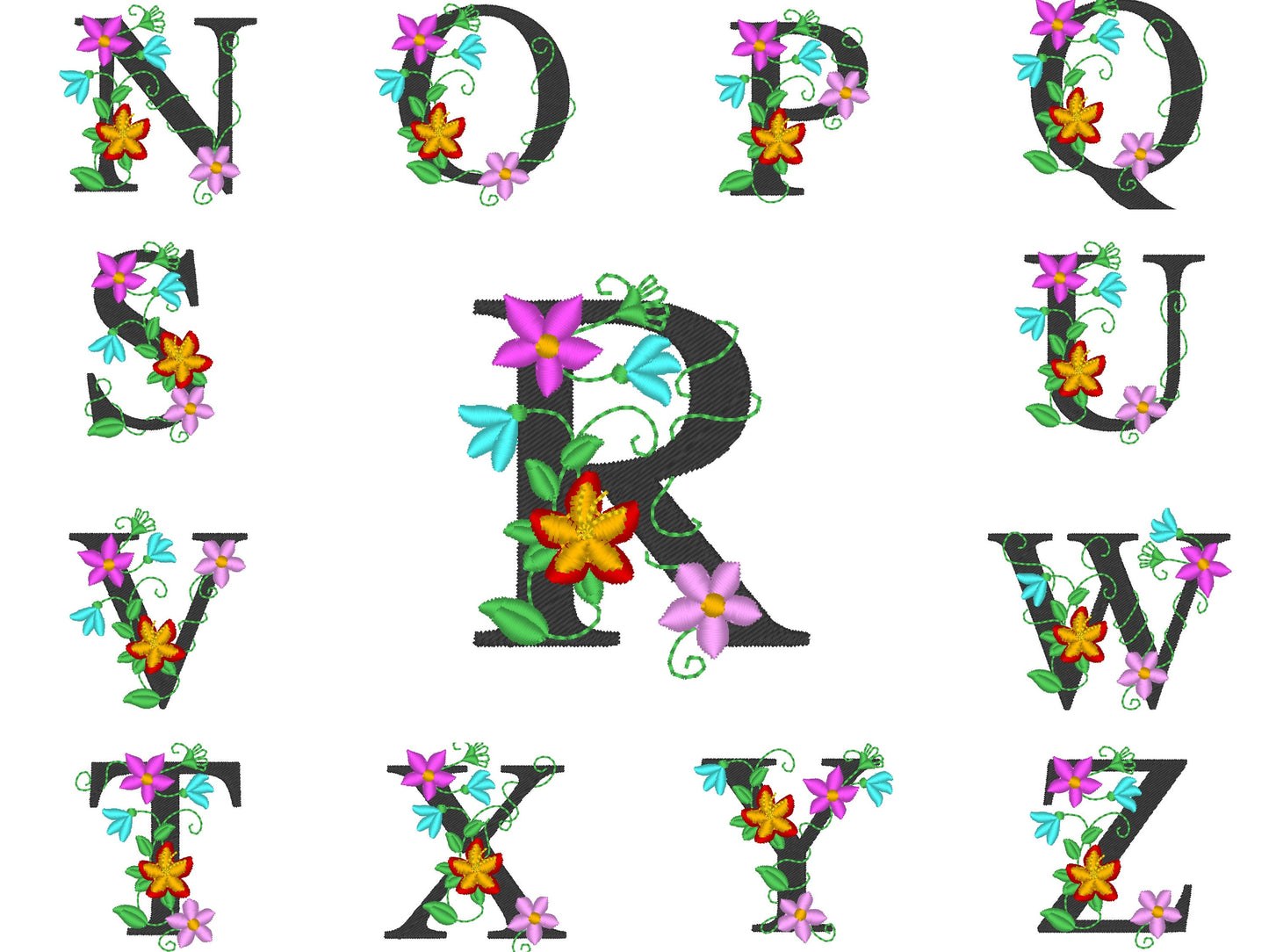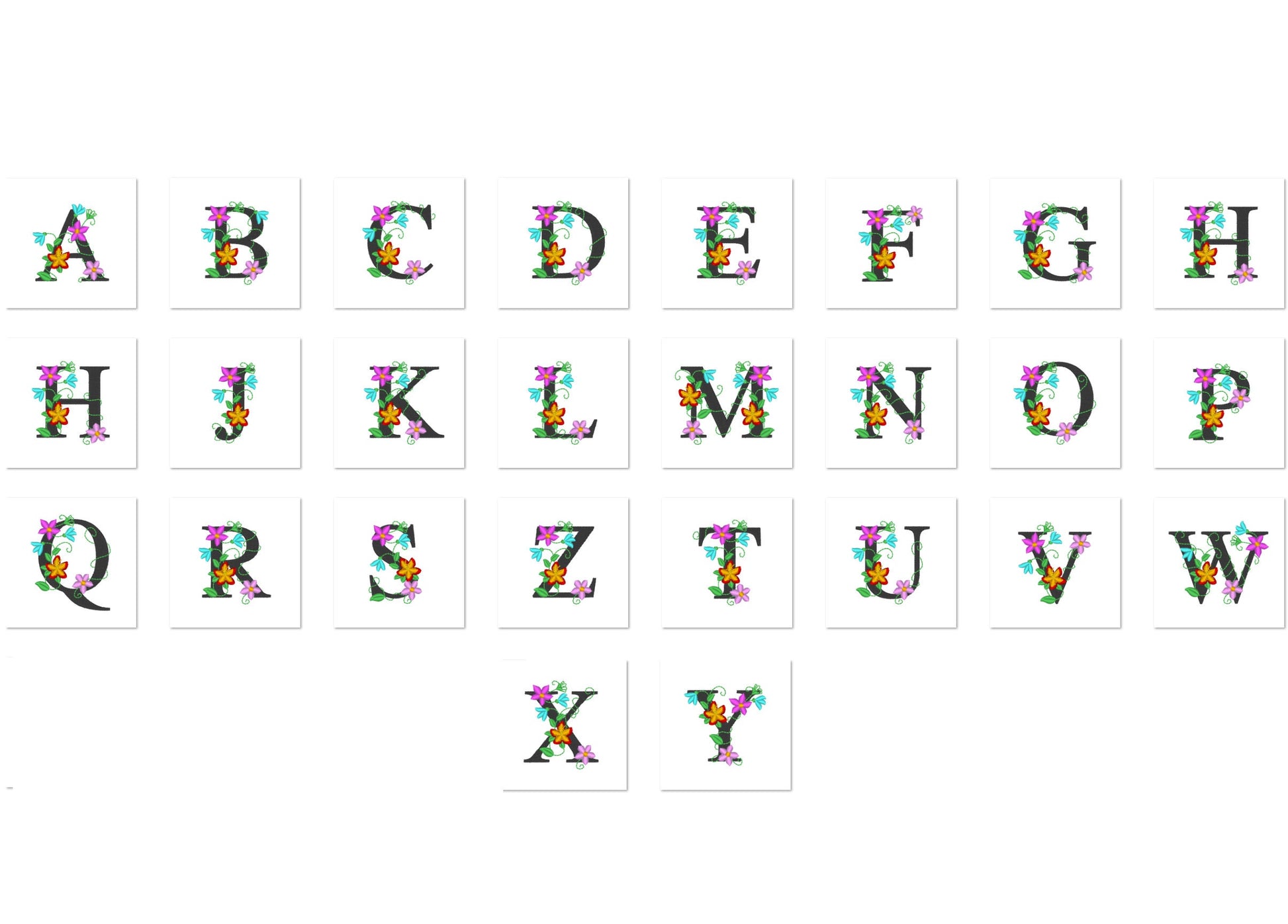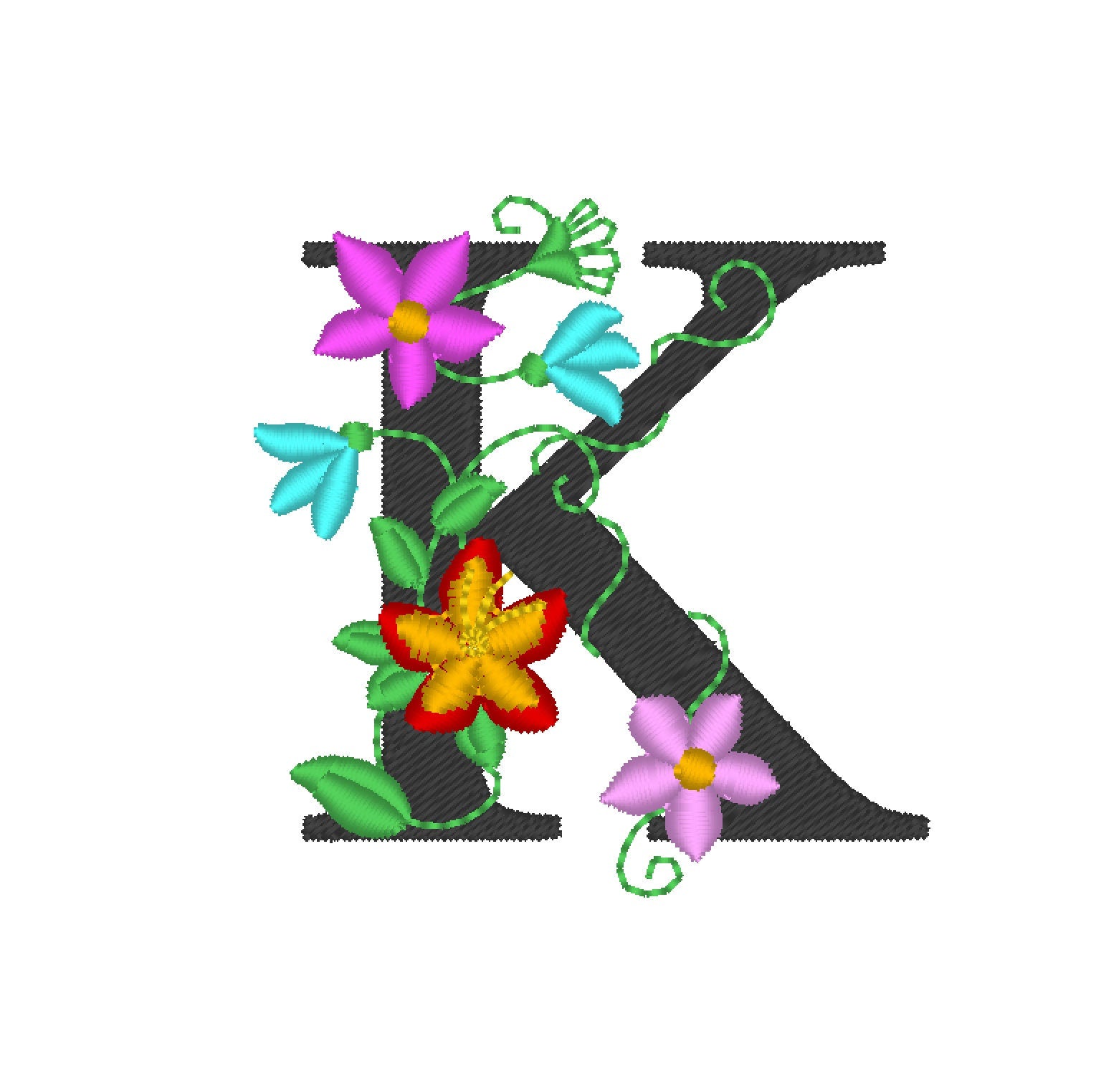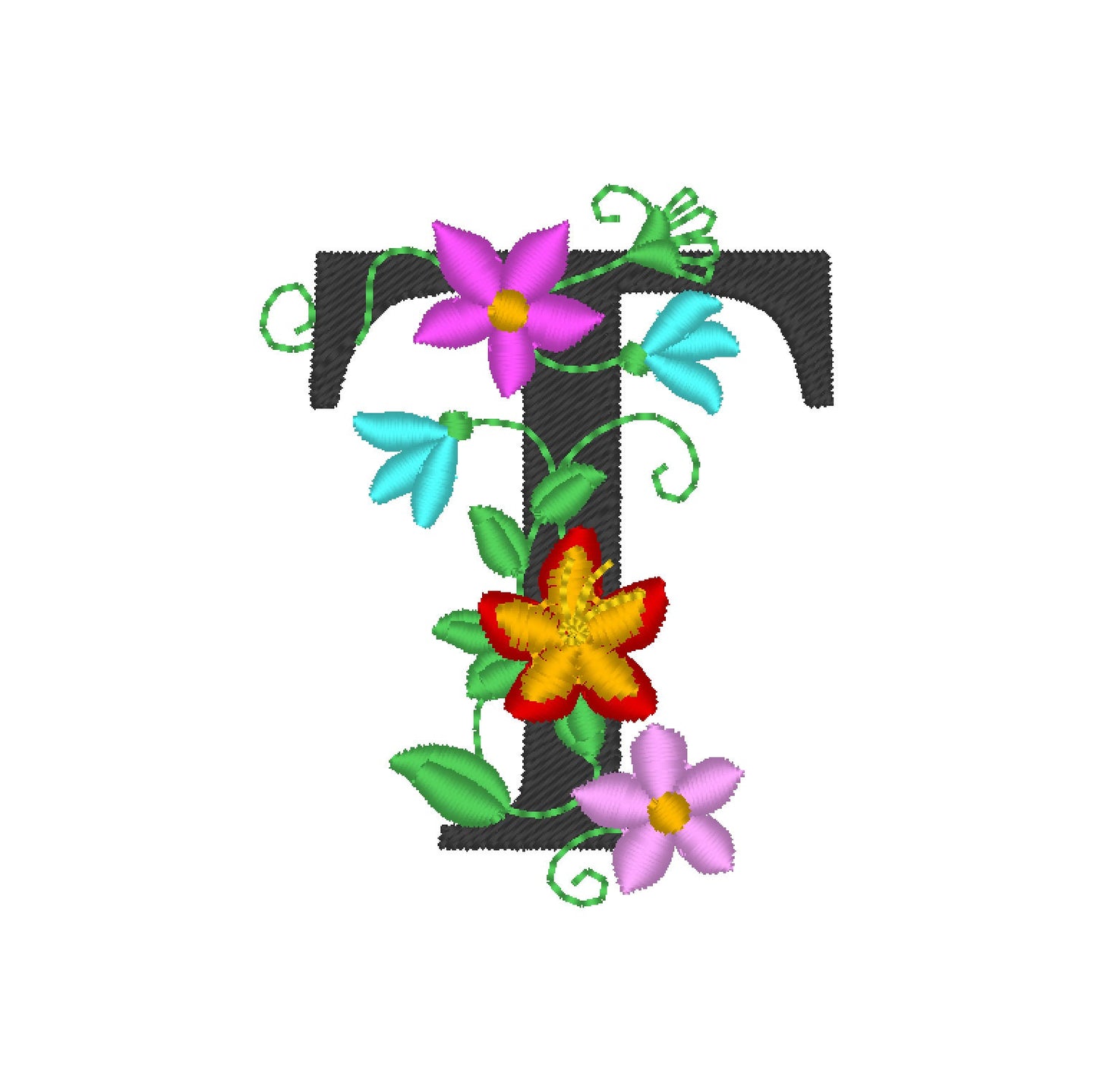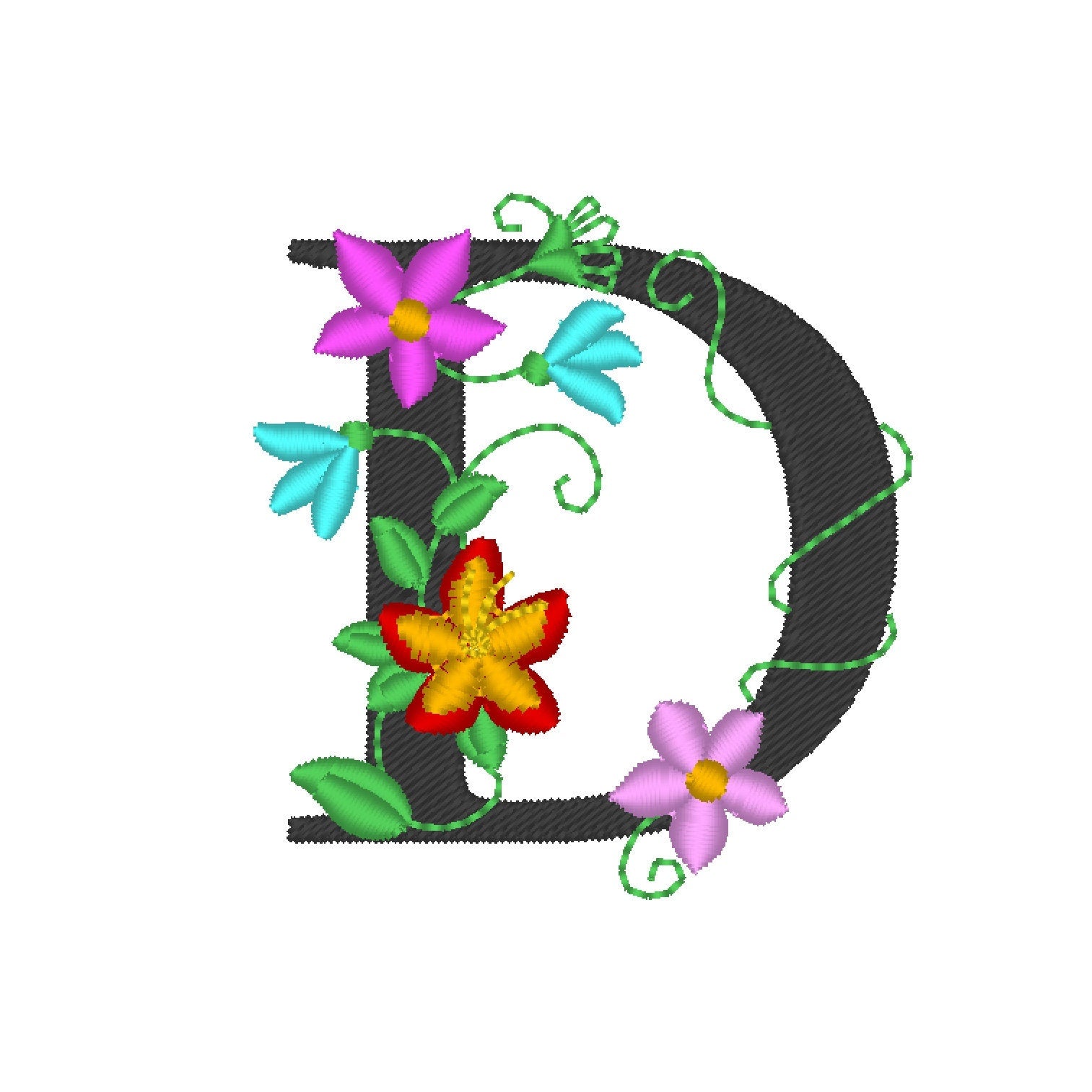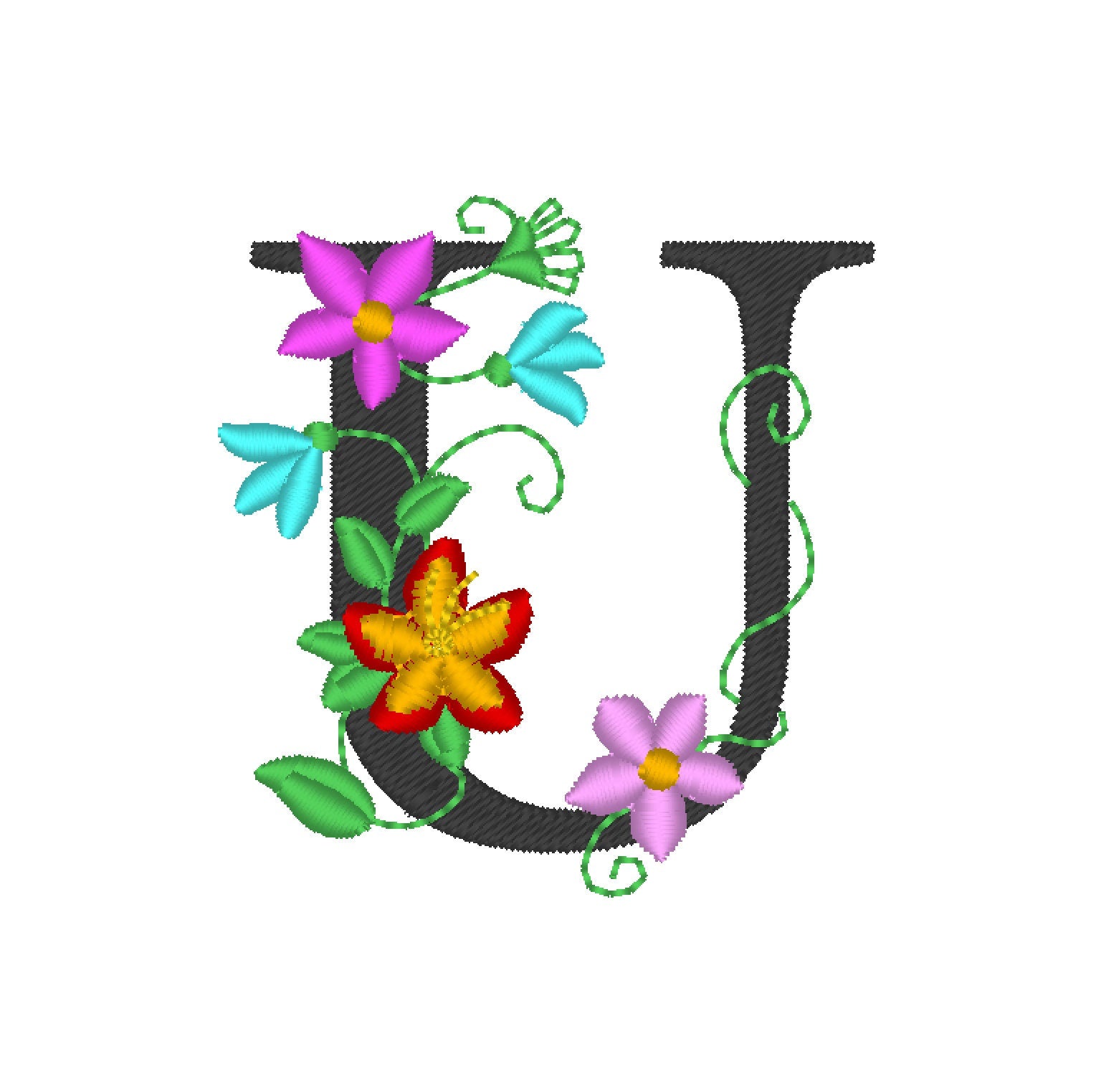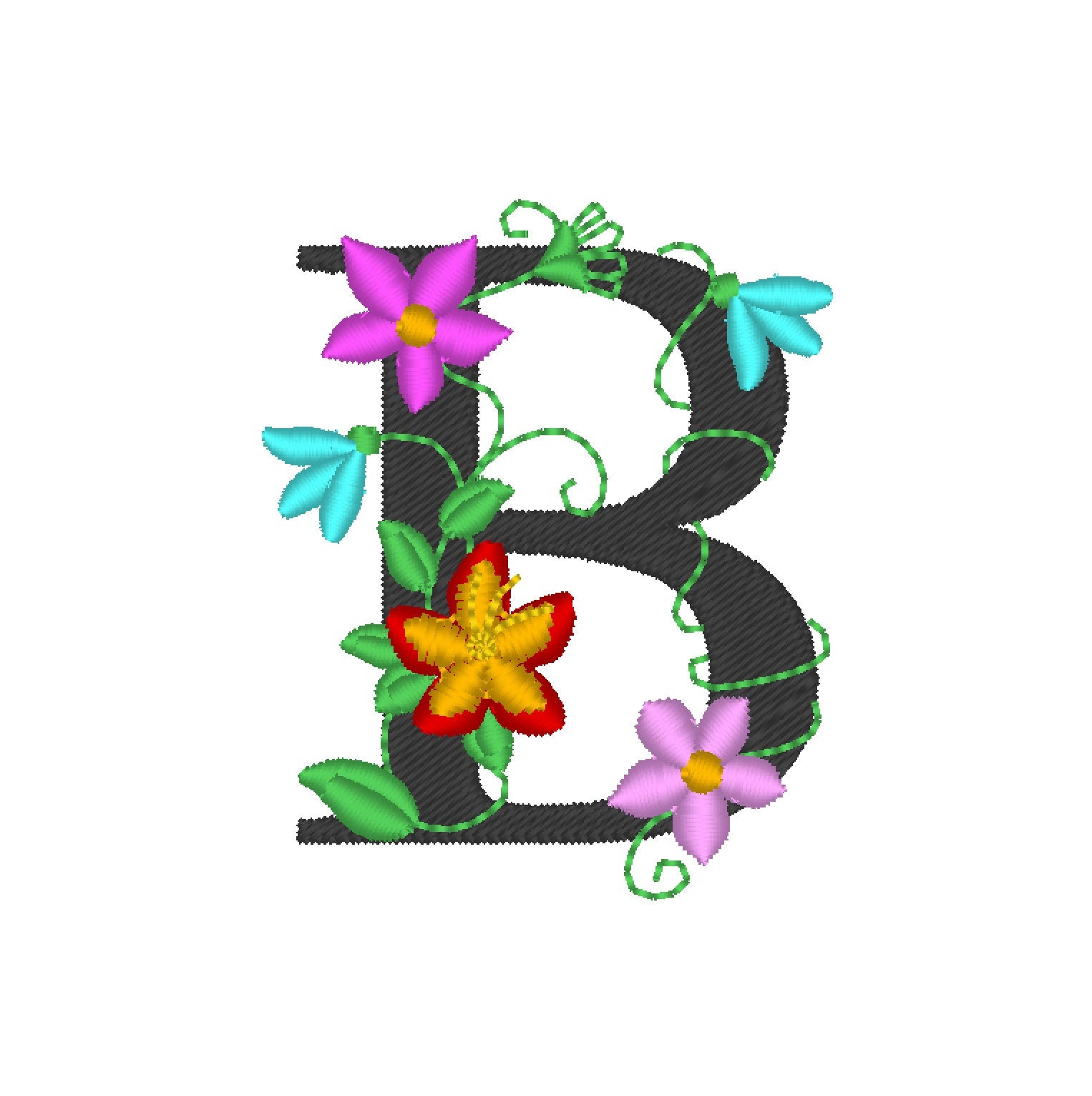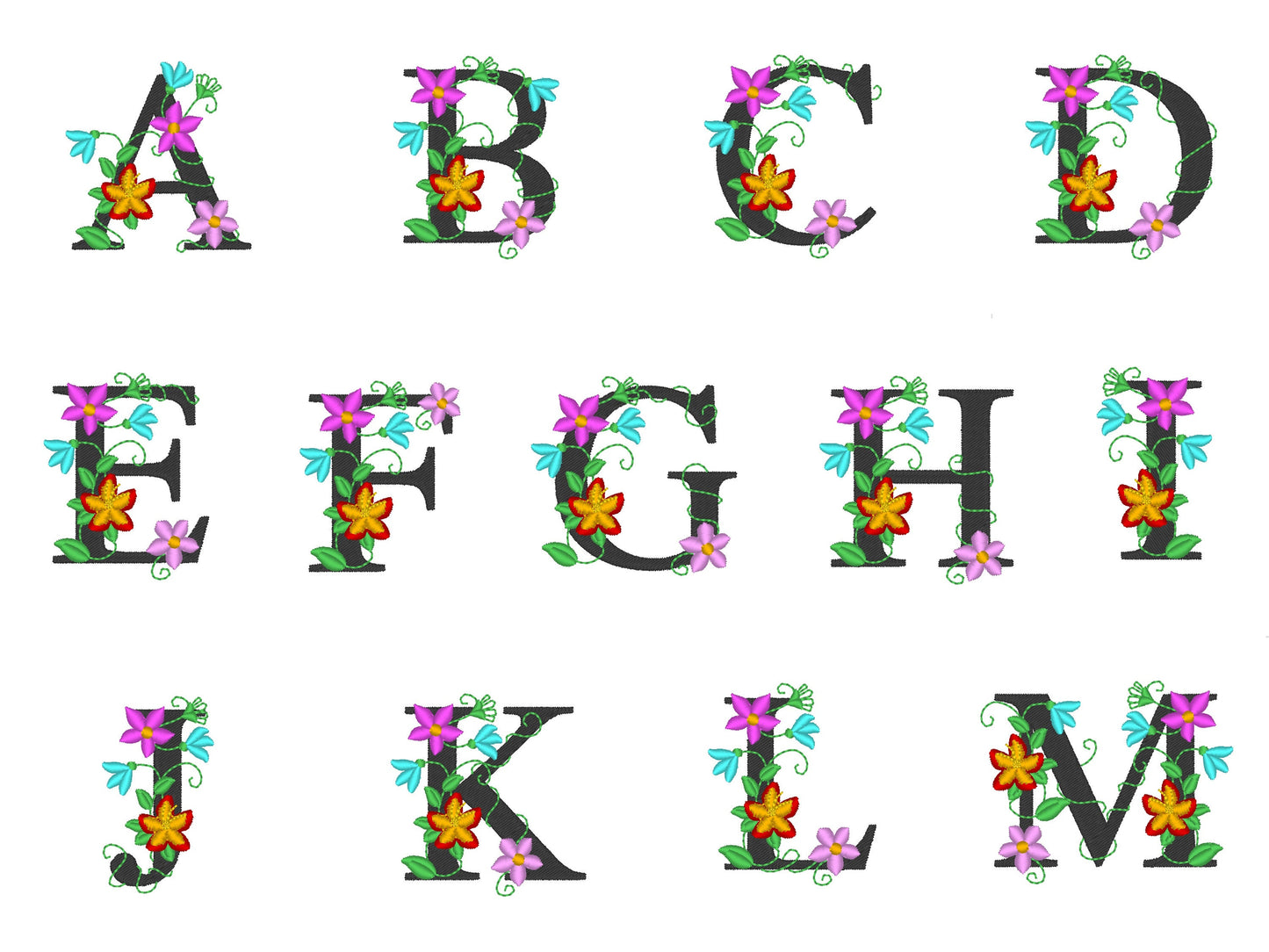
Or click to open the linkA floral block alphabet with lacy swirls and flowers. Pretty for initials, small monograms, pillows and girls' clothes.
All 26 uppercase letters, A to Z, in three sizes: 2, 2.5 and 3 inches. Each block letter is decorated with swirls and little flowers.